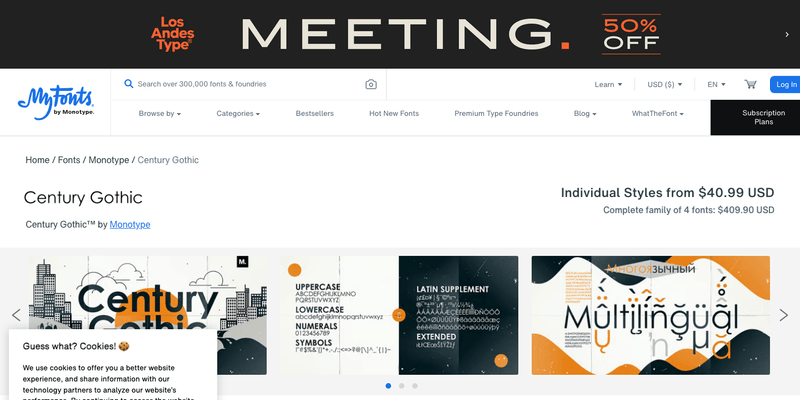
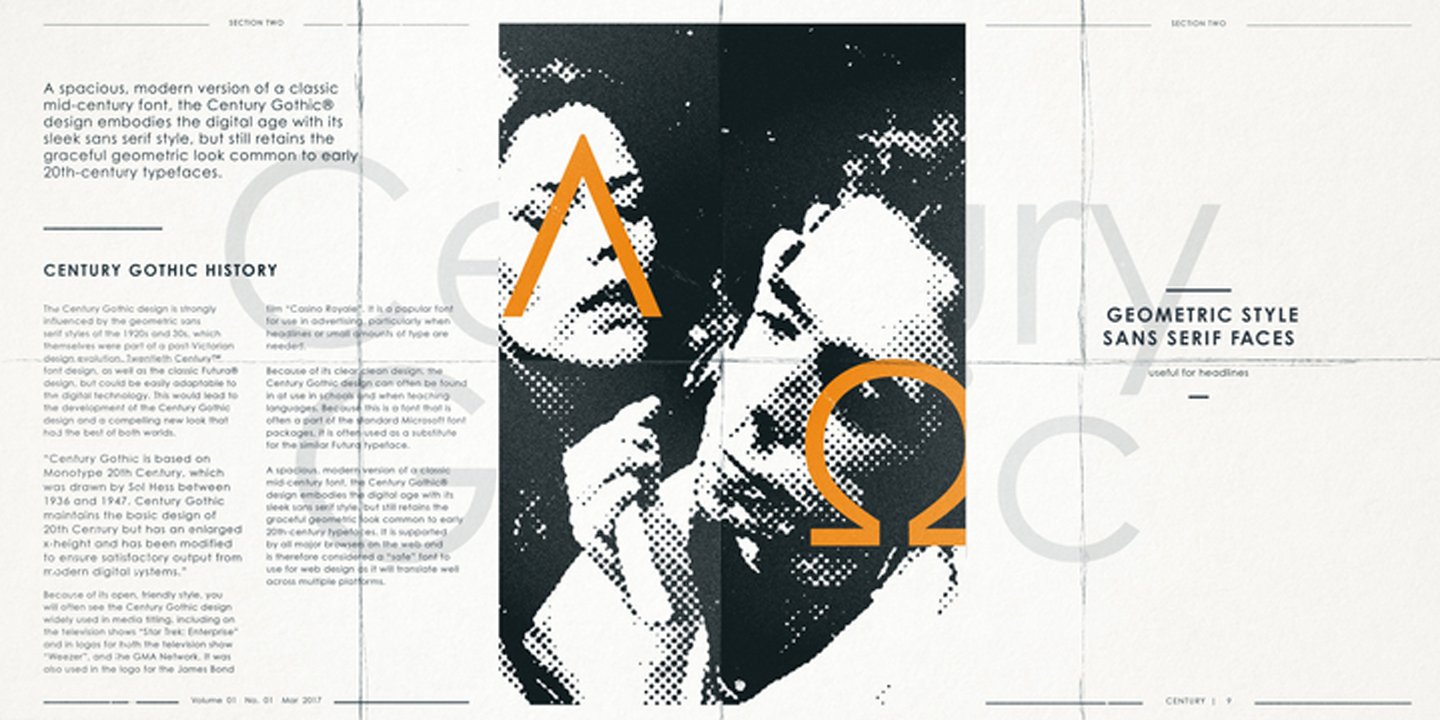
About Century Gothic
- Monotype
- sans-serif
- geometric
Bundled application font since Office 4.3 (1994), which drove its ubiquity
A default "clean, modern" choice for business slide decks and reports
Widely used via bundled Office for logos and marketing by non-designers
Popular for calm, open geometric identities at display sizes
Century Gothic is a geometric sans-serif released by Monotype in 1991, drawn as a digital family in the lineage of Monotype's own Twentieth Century (a 1930s Futura-style face). Bundled for years with Microsoft Office, it became one of the most familiar geometric sans-serifs in the world — the clean, wide, circular typeface of a thousand corporate slide decks.
Why Century Gothic Matters
Century Gothic's significance is less about design innovation than about ubiquity. It was never a bold artistic statement; it was Monotype's practical, readable entry in the geometric-sans category, made enormously influential by the fact that it shipped on the computers of nearly every office worker for two decades. For a generation of people who never thought about typefaces, Century Gothic was the "modern, clean" font — the one you picked when Arial felt too plain and Times too stuffy.
That ubiquity is exactly why the page you are reading exists. Because Century Gothic came bundled rather than licensed, plenty of designers used it without ever buying it, and now — building websites, or working outside the Microsoft ecosystem — they need a font they can legally embed and self-host. The good news is that its geometric style is one of the best-served in free type, so the wide, circular look is easy to reproduce.
Who is it for? Projects that want a clean, friendly, geometric voice with a generous, open feel — corporate communications, education, wellness and lifestyle branding, and anything that benefits from looking calm and approachable at large sizes. It is less suited to dense text or to brands wanting a sharp, distinctive, or fashion-forward identity, where its very familiarity works against it. Think of it as a safe, pleasant default rather than a statement: if a brief calls for typography that reassures rather than surprises, Century Gothic and its free relatives do that job reliably, and if it calls for something memorable, this is the wrong shelf to be shopping on.
Design Characteristics
If you want to understand Century Gothic in one word, it is round. Where Futura is geometric and precise and Avant Garde is geometric and tight, Century Gothic is geometric and roomy — the same constructed logic, opened up and given air. That openness is what makes it feel friendly and premium at large sizes, and it is also what limits it everywhere else. The specifics that define it:
- Near-circular bowls: The
O,o,e, and related letters are built on near-perfect circles, the defining move of the geometric-sans style. - Single-storey
aandg: Simple, constructed forms rather than the two-storey shapes of humanist sans-serifs, reinforcing the clean, modern look. - Wide proportions and generous spacing: Century Gothic is noticeably wider and more loosely spaced than most geometric sans-serifs, which gives it an airy, elegant feel — and makes it hungry for horizontal space.
- Large x-height: The lowercase is tall relative to the capitals, aiding legibility at the display sizes where the face is happiest.
- Light, even strokes: Thin, consistent stroke weights contribute to its clean appearance and, famously, to its reputation as an economical font to print.
- A small core family: Century Gothic's standard offering is limited — Regular and Bold with italics — which is one of the main practical reasons designers reach for a more flexible free alternative.
History and Design
The geometric-sans style Century Gothic belongs to was defined by Paul Renner's Futura in the late 1920s and popularized in the United States by faces like Monotype's Twentieth Century. When ITC Avant Garde Gothic became fashionable in the 1970s and 80s with its wide proportions and tight, distinctive forms, Monotype had a template for a similar geometric sans. Century Gothic, released in 1991, drew on that wide, circular tradition while aiming for comfortable readability.
Its real distribution engine, though, was Microsoft. Bundled with Office and Windows for many years, Century Gothic reached an audience that no foundry marketing could match, becoming the default "geometric" choice in business documents and presentations through the 1990s and 2000s. That bundling is a double-edged legacy: it made the face ubiquitous, but it also means its licensing is tied to Microsoft software rather than freely available for web embedding — the gap the free alternatives fill.
It is worth being clear about what Century Gothic is and is not within the geometric-sans family. It is not a designer's darling in the way Futura or Avenir are; type critics have often treated it as the competent, slightly generic bundled option rather than a landmark design. But that is also unfair to how well it does its actual job. As a clean, readable, wide geometric sans that a non-designer could pick from a dropdown and not embarrass themselves with, it succeeded completely — and the sheer volume of documents set in it over thirty years makes it a genuine part of the visual vocabulary of modern office life, whatever the critics think of its pedigree.
Century Gothic also earned a curious footnote in the "font ecology" debates around 2010, when studies pointing out that its thin strokes used relatively little ink led some organizations to recommend it as an economical print choice. The catch, often noted in response, is that its wide proportions consume more paper and horizontal space, so any ink savings can be offset — a neat illustration that typographic economy is never as simple as one variable.
Where Century Gothic Excels
Century Gothic's sweet spot is anywhere large, clean, and calm — display sizes where its wide, circular elegance can breathe and its light strokes stay crisp. It is a headline and identity face far more than a text one, and inside that lane its familiarity is an asset: it reads instantly as "modern and professional" without asking the viewer to work for it. The strongest fits:
- Presentations and slides: Clean and legible at large sizes, which is exactly the scale slide decks live at — its most natural home.
- Logos and geometric branding: The circular, elegant forms suit wordmarks and identities that want a modern, approachable feel.
- Education and children's materials: The simple single-storey letterforms are clear and unintimidating.
- Wellness, beauty, and lifestyle branding: The airy, open proportions read as calm and premium at display sizes.
- Headlines and short display text: Where its width and spacing are an asset rather than a liability.
Where Century Gothic Struggles
The traits that make Century Gothic elegant at 40 points make it awkward at 10, and the ubiquity that made it safe also made it invisible. Most of its weaknesses come down to using it outside the display role it was really built for:
- Body text and dense layouts: The wide proportions and loose spacing eat horizontal space and slow reading; it is a display face at heart, not a text one.
- Small sizes and screens: The thin, light strokes can weaken and shimmer at small sizes on lower-resolution displays.
- Distinctive or fashion-forward brands: Its very familiarity — the "default modern font" association — works against projects that need to stand out.
- Limited weights: The core Regular/Bold family offers little room for nuanced hierarchy compared with the wide variable ranges of the free alternatives, which can span anywhere from Thin to Black in a single family.
- Print economy myths: Choosing it purely to "save ink" is shaky reasoning once paper and space are factored in, and it should never be the deciding factor in a type choice that will shape how a brand looks for years.
How to Choose a Free Substitute
Because Century Gothic sits squarely in the well-populated geometric-sans category, a close free match is easy to find — the trick is matching its specific wide, open proportions rather than just its geometric style.
For the closest proportional match, Questrial is purpose-built to echo Century Gothic's wide geometry and clean circular forms, though it offers only a single weight. When you need weights and flexibility, Mulish delivers the same clean aesthetic with a full variable range, and Poppins brings circular geometric forms with excellent screen optimization. For a more Futura-classical feel, Jost is the pick; for warmer, screen-first readability at smaller sizes, Nunito Sans softens the geometry without losing the circular character; and Montserrat is the ubiquitous, ultra-flexible option for branding and headlines.
The one thing to watch is width. Several of these alternatives are narrower than Century Gothic, so if its airy, spacious feel is central to your design, add a little letter-spacing to the substitute and test a full line of text — the spacing is as much a part of Century Gothic's character as the letterforms themselves. It is also worth checking the single-storey a and g: some geometric alternatives quietly switch to two-storey forms, which changes the character more than any proportional difference, so confirm those letters match the look you are after before you commit.
Premium Font Neighbors
If Century Gothic's geometric style appeals but you want to explore commercial options, its neighborhood is one of the richest in type. Futura is the archetype the whole style descends from, and ITC Avant Garde Gothic is its closest relative — the wide, circular geometric sans Century Gothic most resembles. Avenir offers a warmer, more humanist take on geometric forms, while Gotham is the modern American geometric that defined 2000s branding. For distinctive alternatives, Brandon Grotesque adds warmth and rounded corners, Kabel brings a quirkier Art Deco geometry, and Proxima Nova and Sofia Pro provide contemporary, versatile geometric families built for screen and print alike.
FAQ
What is the best free alternative to Century Gothic?
Questrial is the closest free match, purpose-built to echo Century Gothic's wide geometric proportions and clean circular forms, though it comes in a single weight. If you need multiple weights, Mulish offers the same clean aesthetic as a variable font, and Poppins is an excellent geometric option optimized for screens. All are free on Google Fonts under the SIL Open Font License.
Can I use Questrial commercially?
Yes. Questrial is licensed under the SIL Open Font License (OFL-1.1), permitting unlimited commercial use without fees — websites, apps, print, presentations, and products. Attribution is only required if you redistribute the font files. Mulish, Poppins, Jost, Nunito Sans, and Montserrat are all OFL as well.
How similar is Questrial to Century Gothic?
Questrial reaches roughly 85% similarity, matching Century Gothic's wide letterforms, circular construction, and generous spacing very closely. The main difference is range: Questrial ships a single regular weight, where Century Gothic has Regular and Bold. For weighted hierarchy, Mulish or Poppins are the better free picks.
Is Century Gothic free?
Century Gothic is a commercial Monotype typeface that has been bundled with Microsoft Office and Windows, so many people have access to it through that software rather than a standalone license. It is not free to embed on websites or redistribute, which is why designers working outside the Microsoft ecosystem turn to open-source alternatives like Questrial, Mulish, and Poppins.
Does Century Gothic really use less ink?
Its thin, light strokes do use relatively little ink, which is why it was suggested as an economical print font in ink-saving discussions around 2010. But its wide proportions use more paper and horizontal space, so the savings are easily offset. It is a reasonable consideration for high-volume printing, not a guaranteed economy.
Is Century Gothic good for body text?
Not especially. Its wide proportions, loose spacing, and light strokes are built for display sizes — headlines, logos, and slides — and become inefficient and tiring across long passages of body text. For running text, a narrower, screen-optimized alternative like Nunito Sans or Poppins is more comfortable.
What fonts pair well with Century Gothic?
A warm serif makes a strong counterpart — a transitional or slab serif underneath Century Gothic headlines balances its cool geometry with some texture. When Century Gothic is used for display, pair it with a more neutral, readable sans or serif for body copy so its wide, airy character stays reserved for the parts of the layout that benefit from it.
Is Century Gothic on Google Fonts?
No, Century Gothic is a premium font from Monotype and is not available on Google Fonts.
The closest Google Fonts alternative is Questrial with 85% similarity. Get it free on Google Fonts ↗
Free Alternatives (6)
Very similar geometric structure and wide proportions
Comparable clean aesthetic with modern refinements
Similar geometric DNA with slightly tighter spacing
Futura-lineage geometric with a full variable weight axis
Rounded geometric sans with a large x-height and broad weights
Popular geometric sans with an urban, slightly wider build
Compare the alternatives
See how Century Gothic compares to its top alternatives — and how those alternatives compare to each other — side by side.
See where Century Gothic is used in the wild and swap to free alternatives live.
Install FontSwap →Replacement Summary
Source: FontAlternatives.com
Premium font: Century Gothic
Best free alternative: Questrial
FontAlternatives similarity score: 85%
Replacement difficulty: Low
Best for: presentations, logos and wordmarks, print headlines, minimalist design
Notable users: Microsoft Office, Corporate presentations, Small-business branding
Not recommended when: Brand consistency with Microsoft Office requires exact letterforms
What is the best free alternative to Century Gothic?
Questrial is the best free alternative to Century Gothic with a FontAlternatives similarity score of 85%.
Questrial shares similar proportions, stroke characteristics, and intended use with Century Gothic. It is available under the OFL-1.1 license, which permits both personal and commercial use at no cost.
This alternative works particularly well for: presentations, logos and wordmarks, print headlines, minimalist design.
Can I safely replace Century Gothic with Questrial?
Yes, Questrial is a high-confidence replacement for Century Gothic. The FontAlternatives similarity score of 85% indicates strong structural compatibility.
Licensing: Questrial is licensed under OFL-1.1, which allows commercial use without licensing fees or royalties.
Weight coverage: All 1 weights have exact matches available.
When should I NOT replace Century Gothic?
While Questrial is a strong alternative, there are situations where replacing Century Gothic may not be appropriate:
- Extended language support: Questrial has limited cyrillic support compared to Century Gothic.
- Strict compliance: Verify that OFL-1.1 terms meet your specific legal and compliance requirements.
Weight-Matching Guide
Map Century Gothic weights to their closest free alternatives for accurate font substitution.
Questrial
| Century Gothic | Questrial | Match |
| Regular | Regular (400) | exact |
Mulish
| Century Gothic | Mulish | Match |
| Regular | Regular (400) | close |
| Bold | Bold (700) | close |
Poppins
| Century Gothic | Poppins | Match |
| Regular | Regular (400) | close |
| Bold | Bold (700) | close |
Jost
| Century Gothic | Jost | Match |
| Regular | Regular (400) | close |
| Bold | Bold (700) | close |
Nunito Sans
| Century Gothic | Nunito Sans | Match |
| Regular | Regular (400) | close |
| Bold | Bold (700) | close |
Montserrat
| Century Gothic | Montserrat | Match |
| Regular | Regular (400) | close |
| Bold | Bold (700) | close |
Performance Guide
Production performance metrics for each alternative.
How to Use Questrial
Copy these code snippets to quickly add Questrial to your project.
CSS code for Questrial
@import url('https://fonts.googleapis.com/css2?family=Questrial:wght@400&display=swap'); HTML code for Questrial
<link rel="preconnect" href="https://fonts.googleapis.com">
<link rel="preconnect" href="https://fonts.gstatic.com" crossorigin>
<link href="https://fonts.googleapis.com/css2?family=Questrial:wght@400&display=swap" rel="stylesheet"> Tailwind code for Questrial
// tailwind.config.js
module.exports = {
theme: {
extend: {
fontFamily: {
'questrial': ['Questrial', 'sans-serif'],
},
}
// Usage in HTML:
// <p class="font-questrial">Your text here</p> Next.js code for Questrial
// Using next/font (Next.js 13+)
import { Questrial } from 'next/font/google';
const questrial = Questrial({
subsets: ['latin'],
weight: ['400'],
});
export default function Component() {
return (
<p className={questrial.className}>
Your text here
</p>
);
}
// Or using inline styles with Google Fonts link:
// <p style={{ fontFamily: "'Questrial'" }}>Your text</p> Expo and React Native code for Questrial
// Install: npx expo install @expo-google-fonts/questrial expo-font
import { useFonts, Questrial_400Regular } from '@expo-google-fonts/questrial';
export default function App() {
const [fontsLoaded] = useFonts({
Questrial_400Regular,
});
if (!fontsLoaded) return null;
return (
<Text style={{ fontFamily: 'Questrial_400Regular' }}>
Your text here
</Text>
);
} Recommended Font Pairings
These free fonts pair well with Questrial Century Gothic for headlines, body text, or accent use.
Libre Baskerville's refined serifs create elegant hierarchy when paired with Century Gothic's clean circular geometry
Merriweather's sturdy, screen-optimized serifs complement Century Gothic's wide proportions for readable digital layouts
Browse Alternatives by Context
Find Century Gothic alternatives filtered by specific use case, style, or language support.
Frequently Asked Questions
What is the best free alternative to Century Gothic?
Questrial is the best free alternative to Century Gothic with a FontAlternatives similarity score of 85%. It shares similar proportions and characteristics while being available under the OFL-1.1 license for both personal and commercial use at no cost.
Is there a free version of Century Gothic?
There is no official free version of Century Gothic. However, Questrial is available under the OFL-1.1 open-source license and achieves a FontAlternatives similarity score of 85%. It includes 1 weights and supports latin, latin-extended.
What Google Font looks like Century Gothic?
The Google Fonts most similar to Century Gothic are Questrial, Mulish, Poppins. Among these alternatives, Questrial offers the closest match with a FontAlternatives similarity score of 85% and includes 1 weights for design flexibility.
Can I use Questrial commercially?
Yes, Questrial can be used commercially. It is licensed under OFL-1.1, which allows free use in websites, applications, print materials, and commercial projects without purchasing a license or paying royalties.
Is Questrial similar enough to Century Gothic?
Questrial achieves a FontAlternatives similarity score of 85% compared to Century Gothic. While not identical, it offers comparable letterforms, proportions, and visual style. Most designers find it works excellently as a substitute in web and print projects.
What are the main differences between Century Gothic and its free alternatives?
Free alternatives to Century Gothic may differ in subtle details like letter spacing, curve refinements, and available weights. Premium fonts typically include more OpenType features, extended language support, and optimized screen rendering. However, for most projects, these differences are negligible.